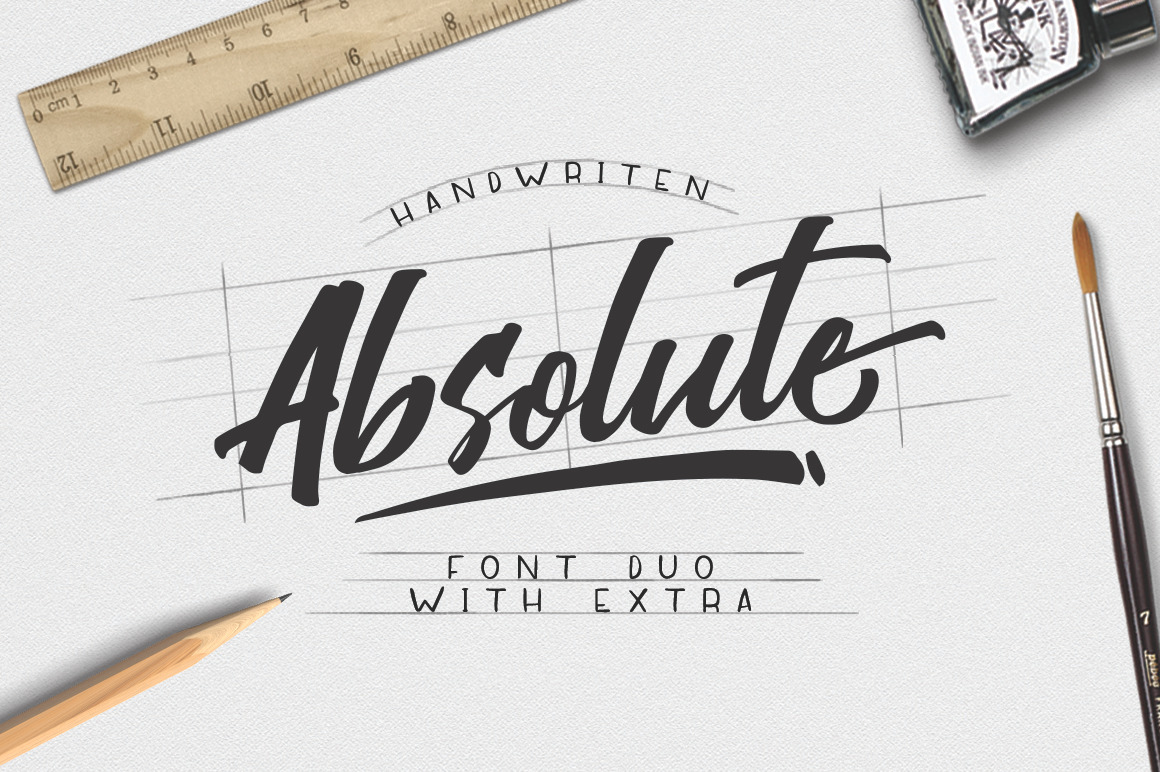
Absolute Font Duo
INTRODUCING Absolute Font Duo, This font is a collaboration with Awakening Studios is a handwritten font with a brush. perfect for your project design, such as logos, printed quotes, handwritten quotes, invitations, cards, product packaging, merchandise, social media & greeting cards, headers and and anything else about your imagination.
Absolute Font Duo contains
- Uppercase, lowercase & numeral
- Absolute Font Brush
- Absolute Sans
- A pack of swashes
- Some ligatures & alternates